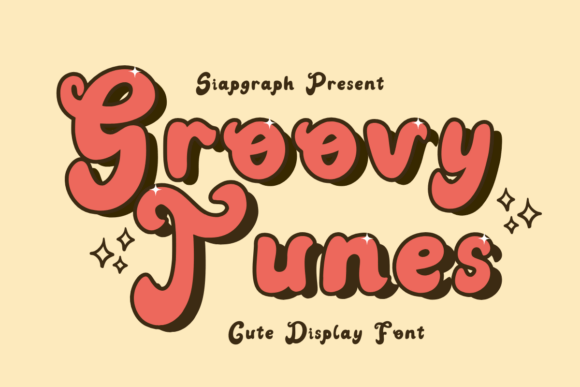
Groovy Tunes Font: The Ultimate Retro-Inspired Script Font for Creative Projects
Are you looking for a font that can add a touch of personality and charm to your creative projects? Look no further than Groovy Tunes Font, a retro-inspired and playful script font that exudes energy and style. In this article, we’ll explore the features and benefits of Groovy Tunes, and how it can be used to elevate your designs, from crafting and DIY projects to branding, KDP interior, and more.
What Makes Groovy Tunes Font So Special?
Groovy Tunes is a carefully crafted font that combines the best of retro and modern design elements. Its smooth, stylish script adds a fun and nostalgic vibe to any design, making it perfect for a wide range of creative projects. Here are some of the key features that make Groovy Tunes stand out:
- Retro-Inspired Design: Groovy Tunes has a unique, retro-inspired design that’s reminiscent of the fun and carefree vibes of the past.
- Playful Script: The font features a playful, cursive script that’s perfect for adding personality and charm to your designs.
Endless Creative Possibilities with Groovy Tunes Font
Groovy Tunes is an incredibly versatile font that can be used for a wide range of creative projects. Here are some of the many ways you can use Groovy Tunes to add personality and style to your designs:
- Crafting and DIY Projects: Add a personal touch to your crafting and DIY projects, such as planners, journals, and handmade cards.
- Branding and Logo Design: Use Groovy Tunes to create unique and memorable logos, business cards, and brand identity materials.
- KDP Interior Design: Create eye-catching and engaging interior designs for Kindle Direct Publishing (KDP) books, including journals, planners, and notebooks.
- Greeting Cards and Stationery: Add a touch of personality to your greeting cards, invitations, and stationery with Groovy Tunes.
- Merchandise and Product Promotions: Use Groovy Tunes to create eye-catching merchandise, such as t-shirts, mugs, and product labels.
Why Choose Groovy Tunes Font for Your Designs?
Groovy Tunes offers a range of benefits that make it an ideal choice for designers and crafters. Here are some of the key advantages of using Groovy Tunes:
- Easy to Read and Write: Groovy Tunes has a smooth, flowing script that’s easy to read and write, making it perfect for body text and headings.
- Highly Versatile: Groovy Tunes can be used for a wide range of creative projects, from formal and informal designs to digital and print materials.
- Unique and Memorable: Groovy Tunes has a unique and memorable design that’s sure to stand out in any design.
- Glyphs and Ligatures: Access to stunning glyphs and ligatures for added design flexibility
Groovy Tunes Font is a fantastic choice for anyone looking to add personality and charm to their creative projects. With its retro-inspired design, playful script, and technical flexibility, Groovy Tunes is the perfect font for crafting, DIY, branding, KDP interior, and more. Whether you’re a designer, crafter, or DIY enthusiast, Groovy Tunes is sure to become a go-to font in your creative arsenal.